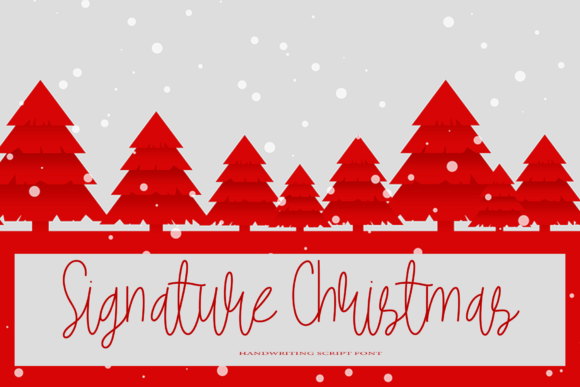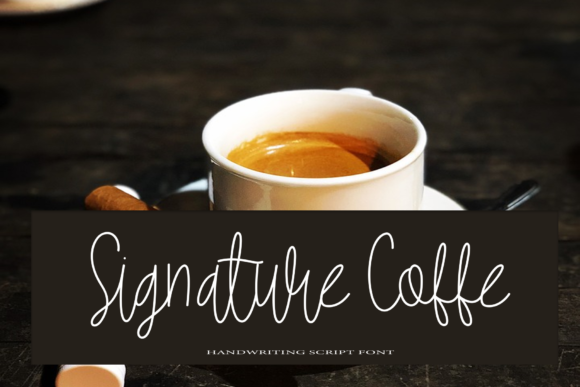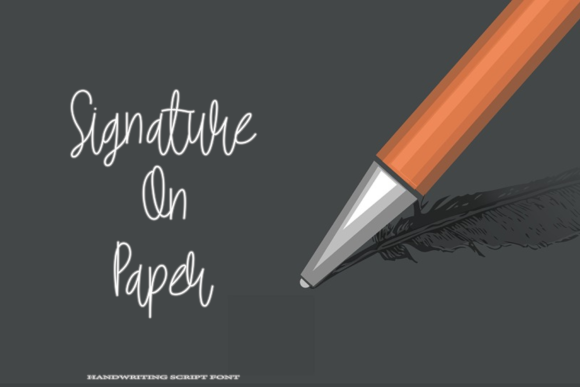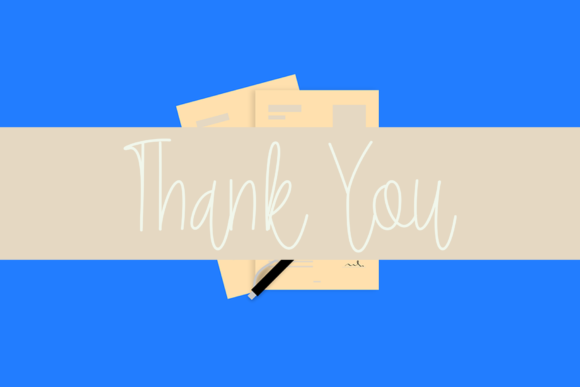
Introduction to Signature Creative Font
Do you remember that moment when you finally nailed the perfect design for your client’s new logo? The feeling of excitement and satisfaction that comes with it is what drives us as designers to continuously push the boundaries of creativity. And that’s exactly where the Signature Creative Font comes in – a beautiful light handwritten font that adds a touch of luxury to any design project.
As designers, we’re always on the lookout for high-quality design resources that can elevate our work and make it stand out. The Signature Creative Font is just that – a stunning addition to any creative project, whether it’s a brochure, a website, or even a social media campaign. With its unique feel and transparent background, this font is sure to make a lasting impression.
Key Features of Signature Creative Font
- Unique, hand-drawn design ideal for creative projects, offering a touch of elegance and sophistication.
- High-quality font with a transparent background, allowing for versatility and flexibility in design applications.
- Designed to work well in various resolutions, from print to digital, ensuring crisp and clear text display.
- Comes in a range of sizes, from 12 to 72 points, providing ample options for designers to choose from.
- Perfect for creative projects, such as logos, typography-based art, and other design elements that require a unique and distinctive look.
Honest Review: Signature Creative Font
I recently had the chance to work with the Signature Creative Font, and I must say it’s been a game-changer for my design projects. ✨ This font is perfect for anyone looking for a high-quality, unique font that will elevate their creative project.
One of the standout features of this font is its transparent background, which makes it incredibly versatile and easy to use. I’ve found it to be a fantastic design resource for everything from brochures to social media graphics.
Here are some of the things I love about the Signature Creative Font:
- Perfect for use in design software like Adobe Creative Cloud
While I’ve been really impressed with the Signature Creative Font, there are a few limitations to be aware of:
- May not be suitable for very small text sizes
Overall, I’m thoroughly impressed with the Signature Creative Font and would highly recommend it to any designer looking for a high-quality, unique font for their creative project. ⚠️ Just be aware of the limitations and use it accordingly.
The Signature Creative Font is perfect for a variety of creative projects, including logos, business cards, and brochures. You can also use it for social media graphics, posters, and other visual content.
To get the most out of the Signature Creative Font, experiment with different font sizes, colors, and styles. You can also combine it with other design elements, such as images and shapes, to create unique and eye-catching designs.